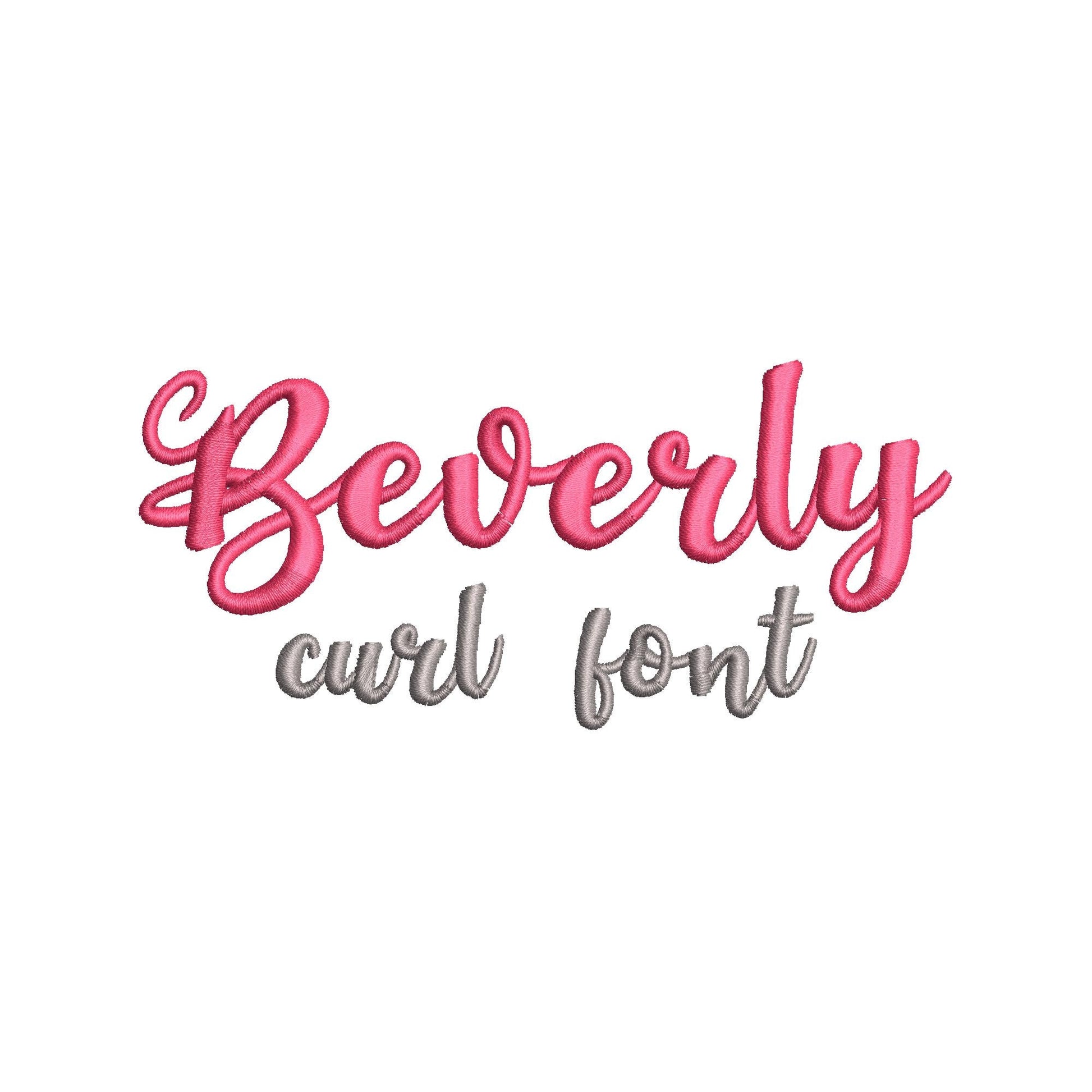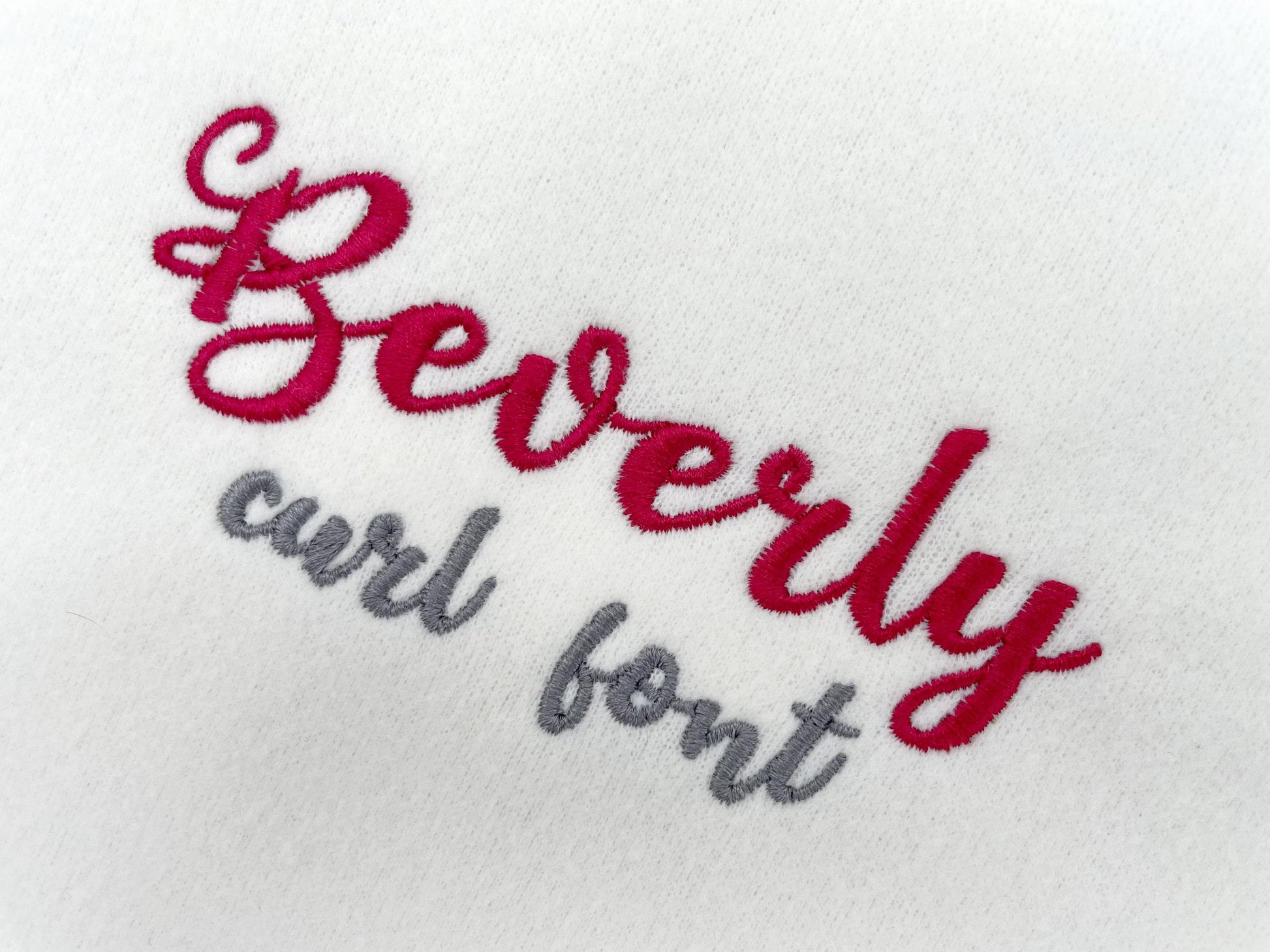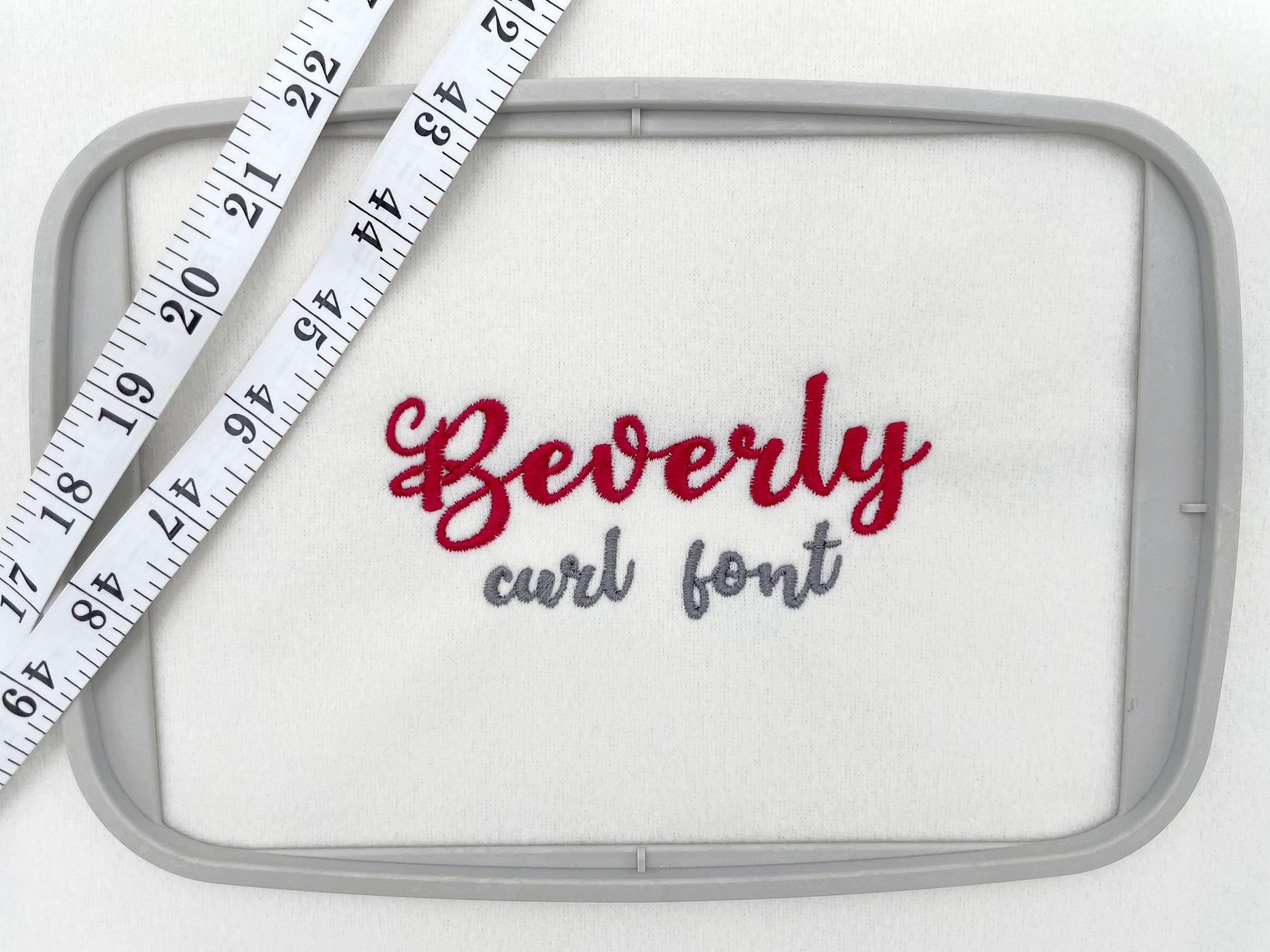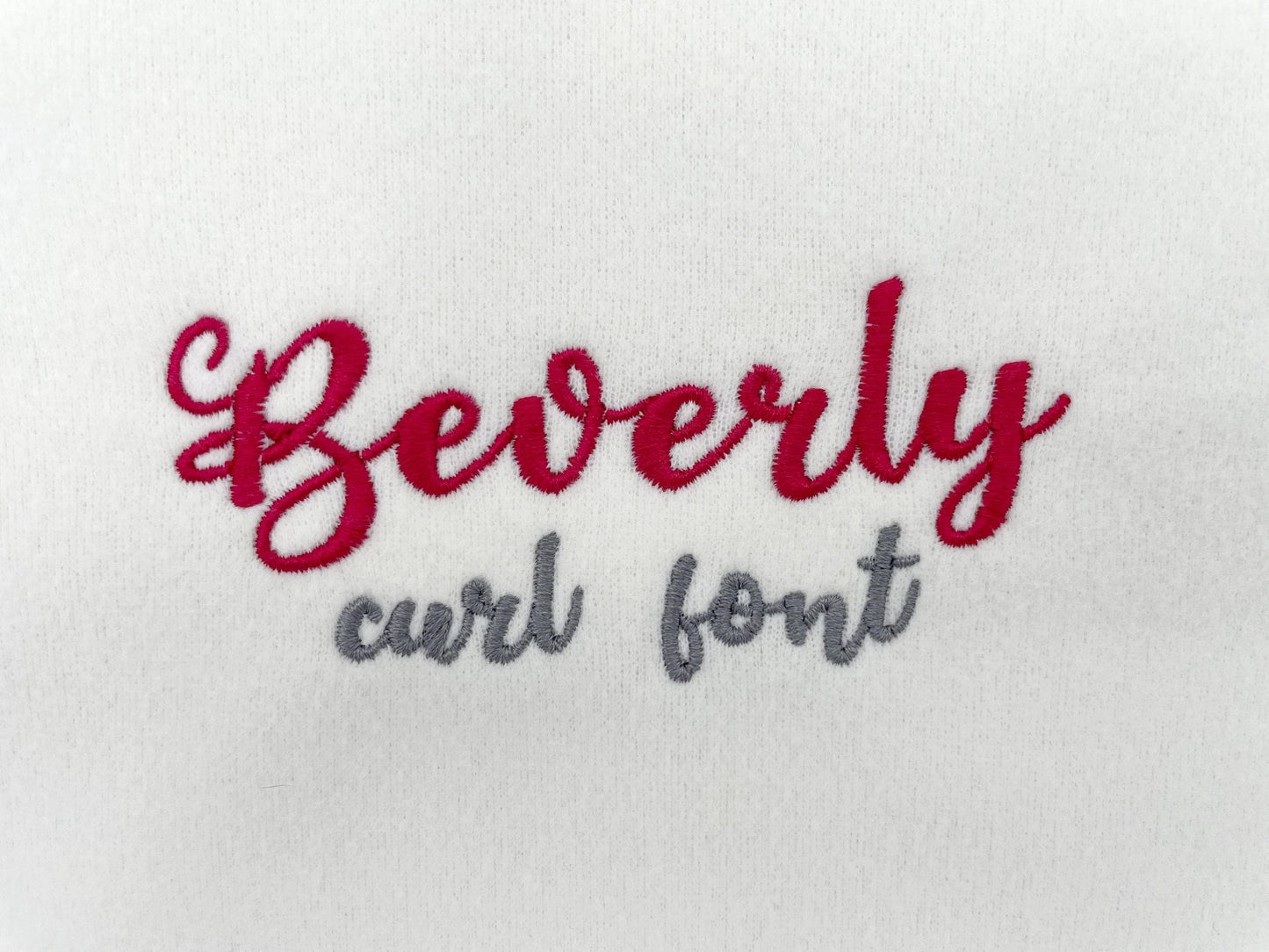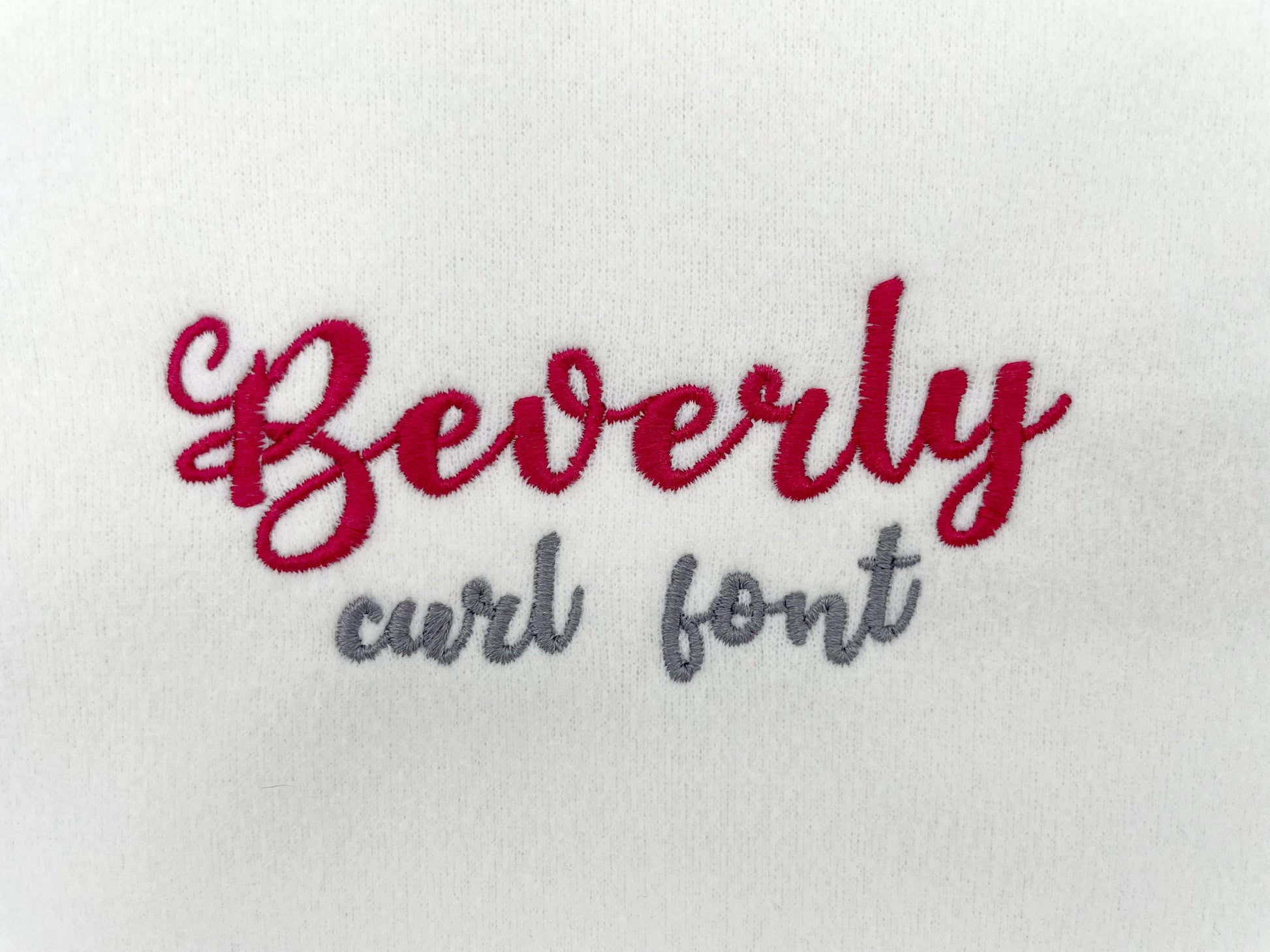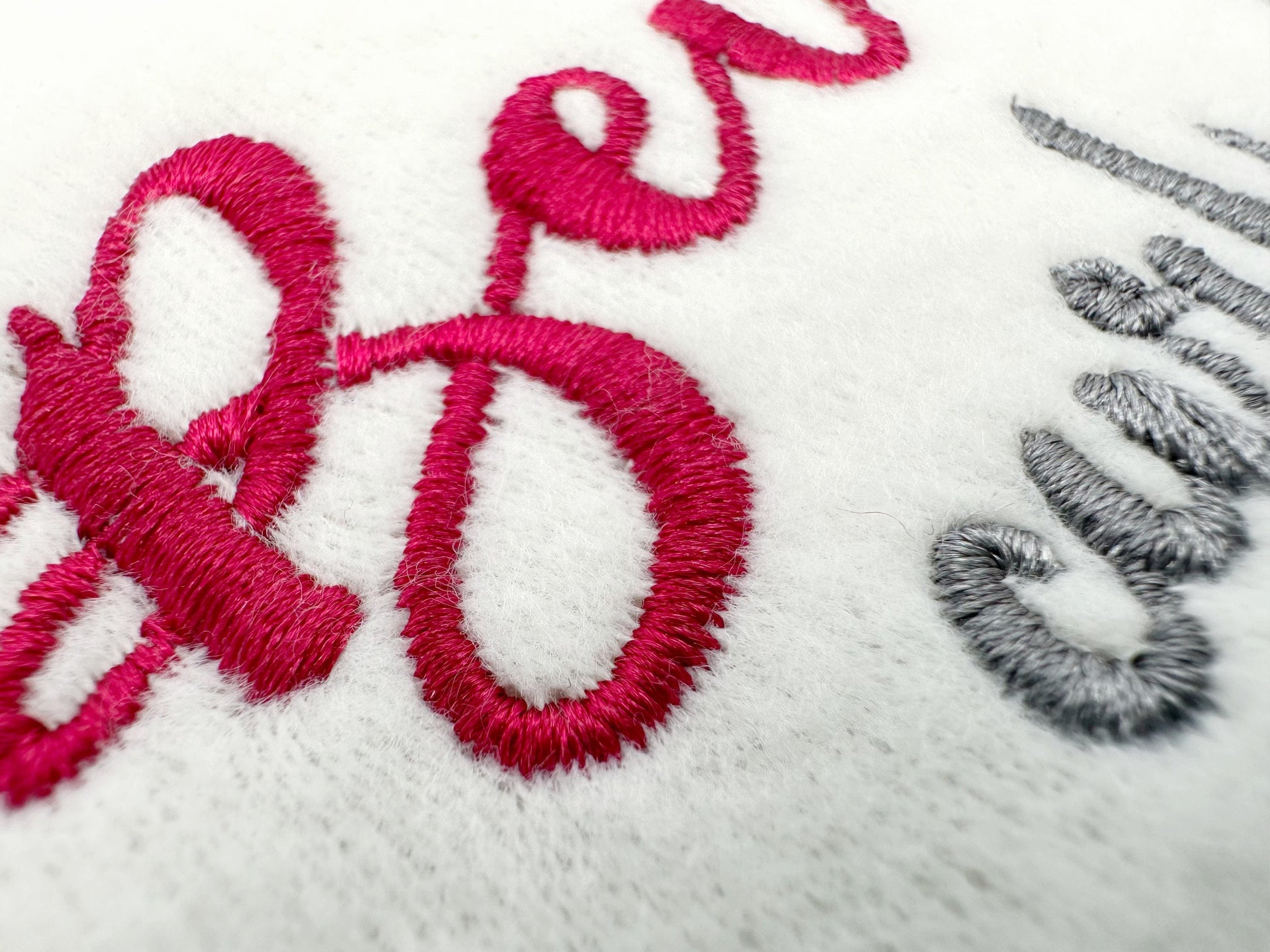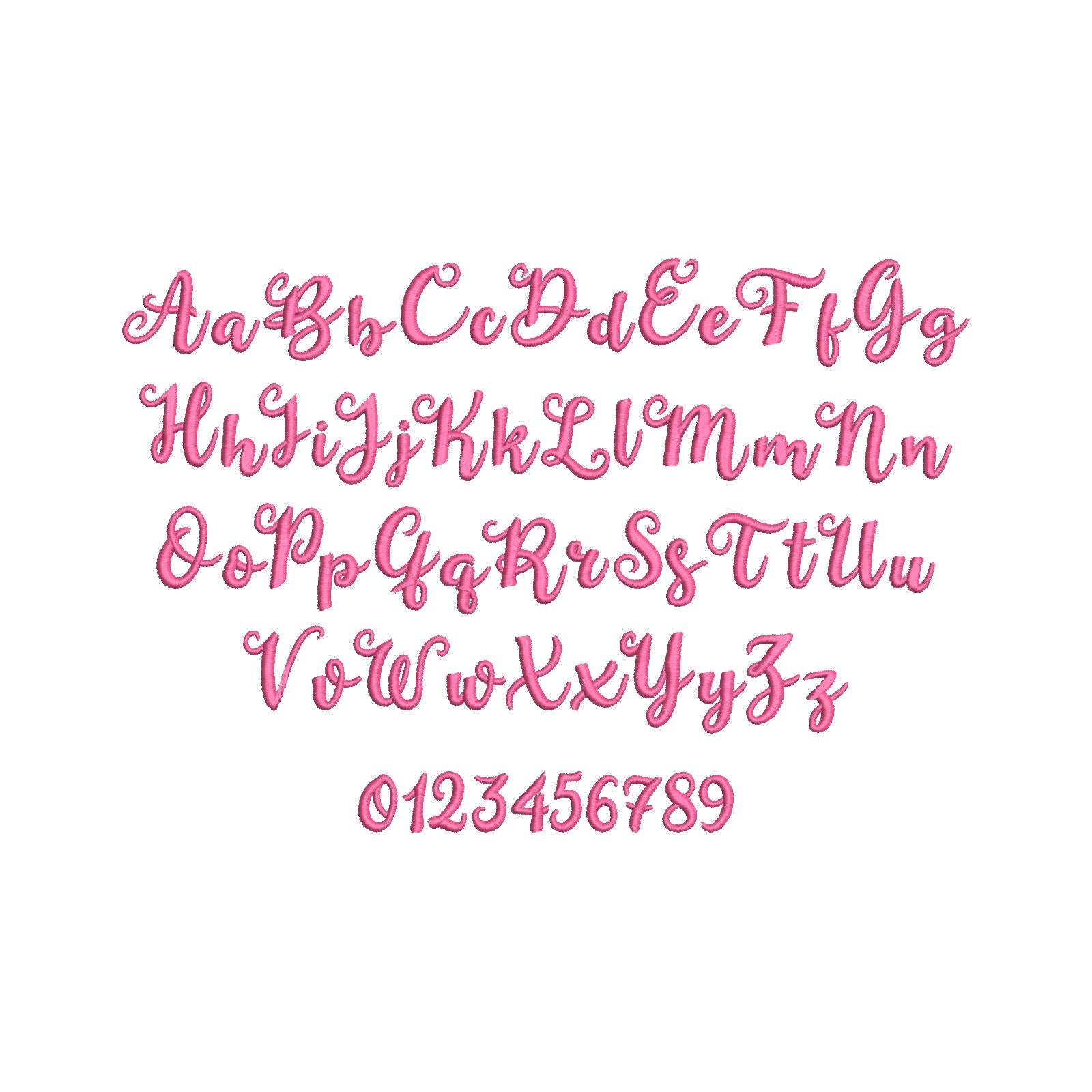
Curl Satin Script Mini Font
Or click to open the linkA cute curly handwritten script in satin stitch, in mini sizes. Pretty for girls' names and small monograms.
The letters come in six mini sizes: 0.5, 0.8, 1.1, 1.3, 1.6 and 2.1 inches. Smooth satin stitch letters with little curls. Includes uppercase and lowercase letters A to Z and numbers 0 to 9.
- Curly satin stitch script font
- Uppercase and lowercase letters, numbers 0 to 9
- 6 sizes, 0.5 to 2.1 in